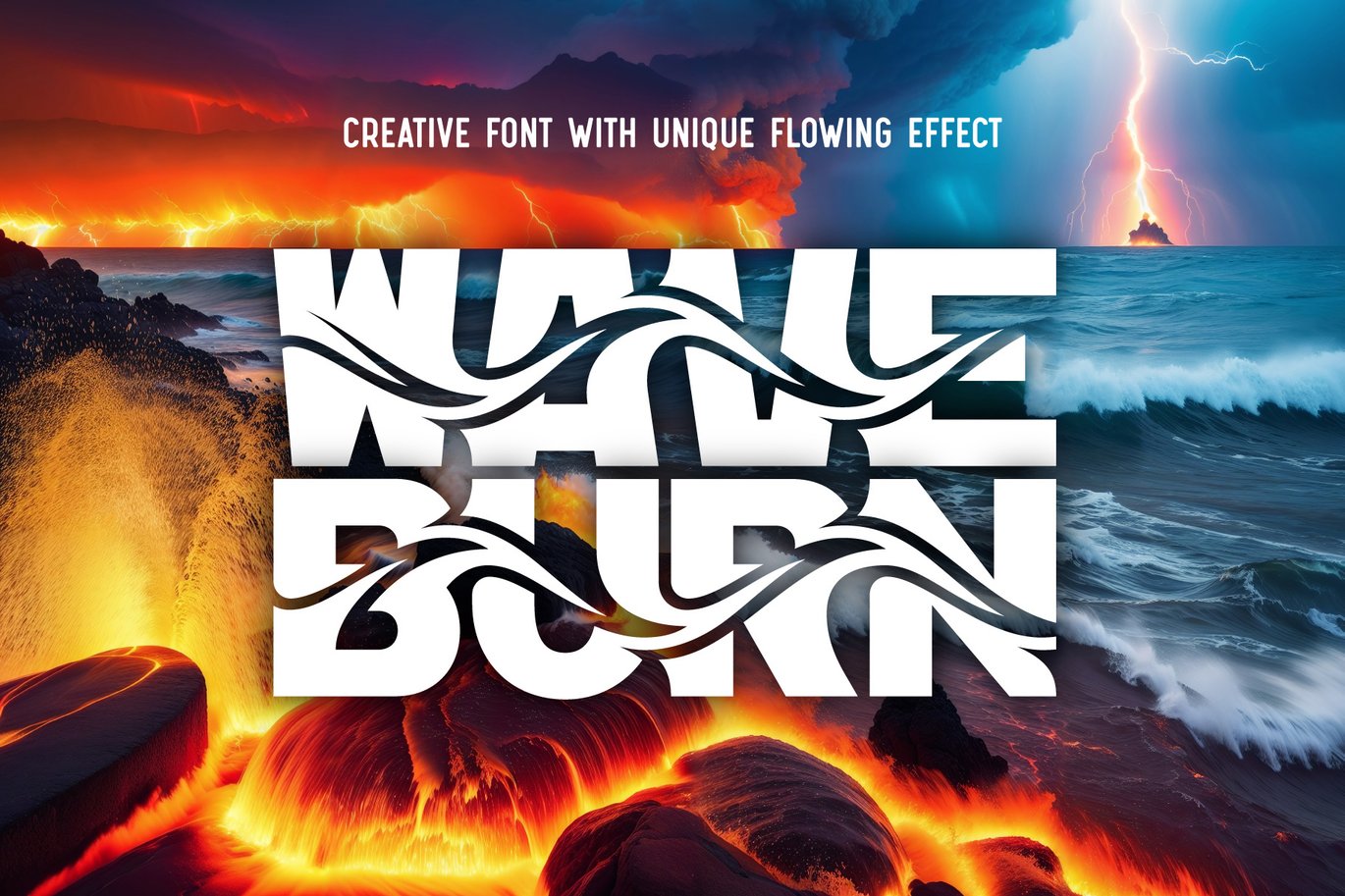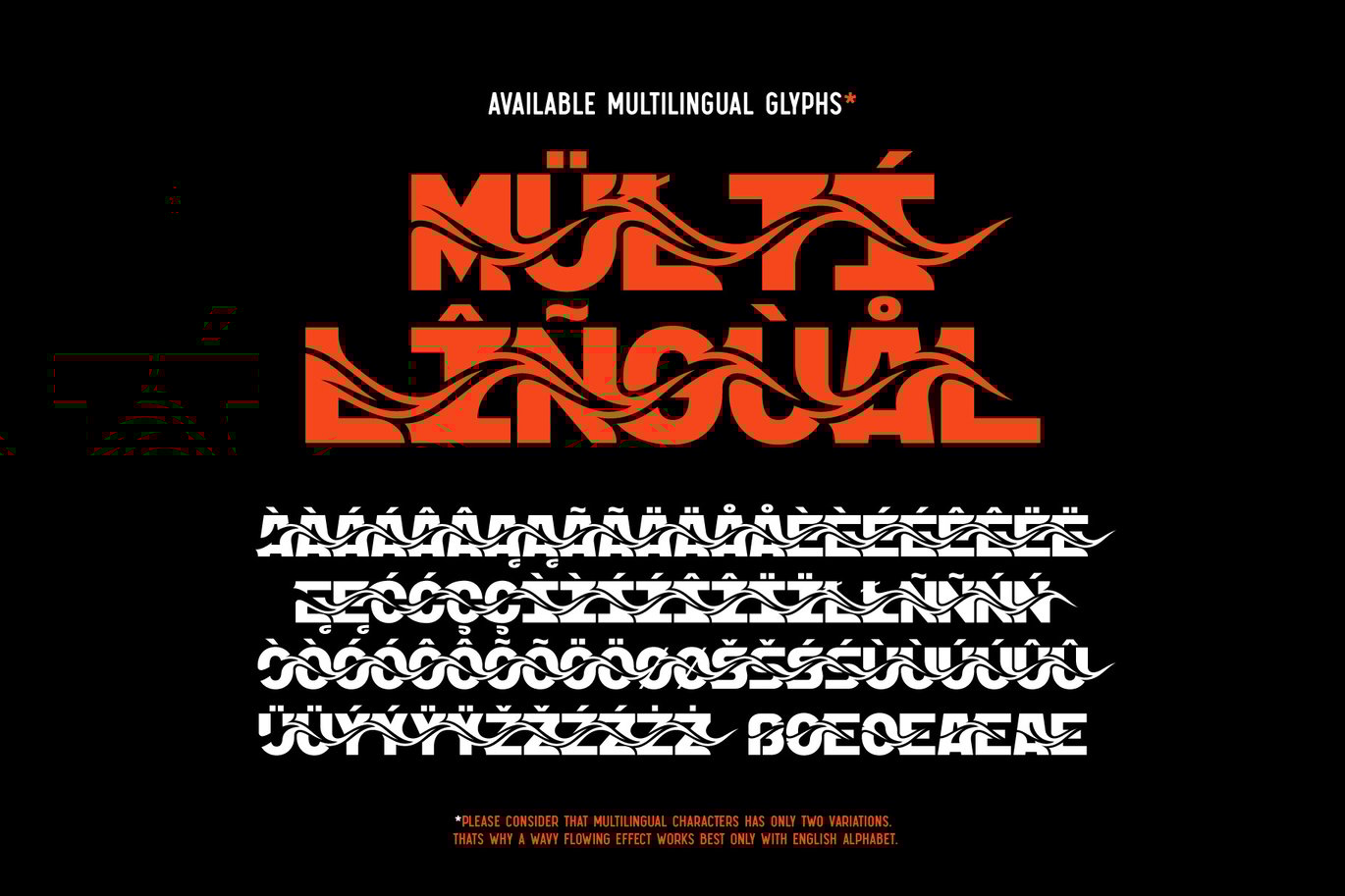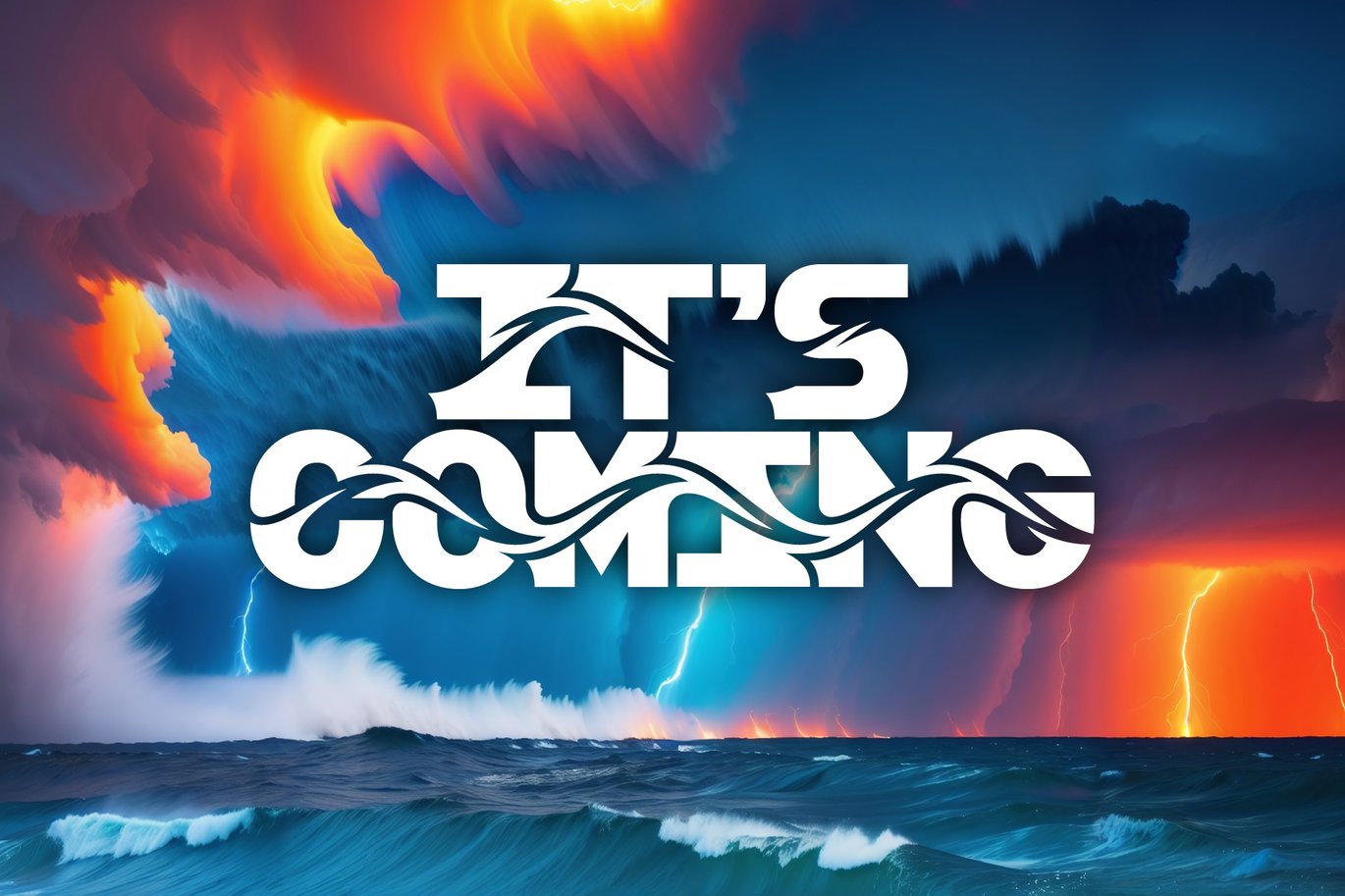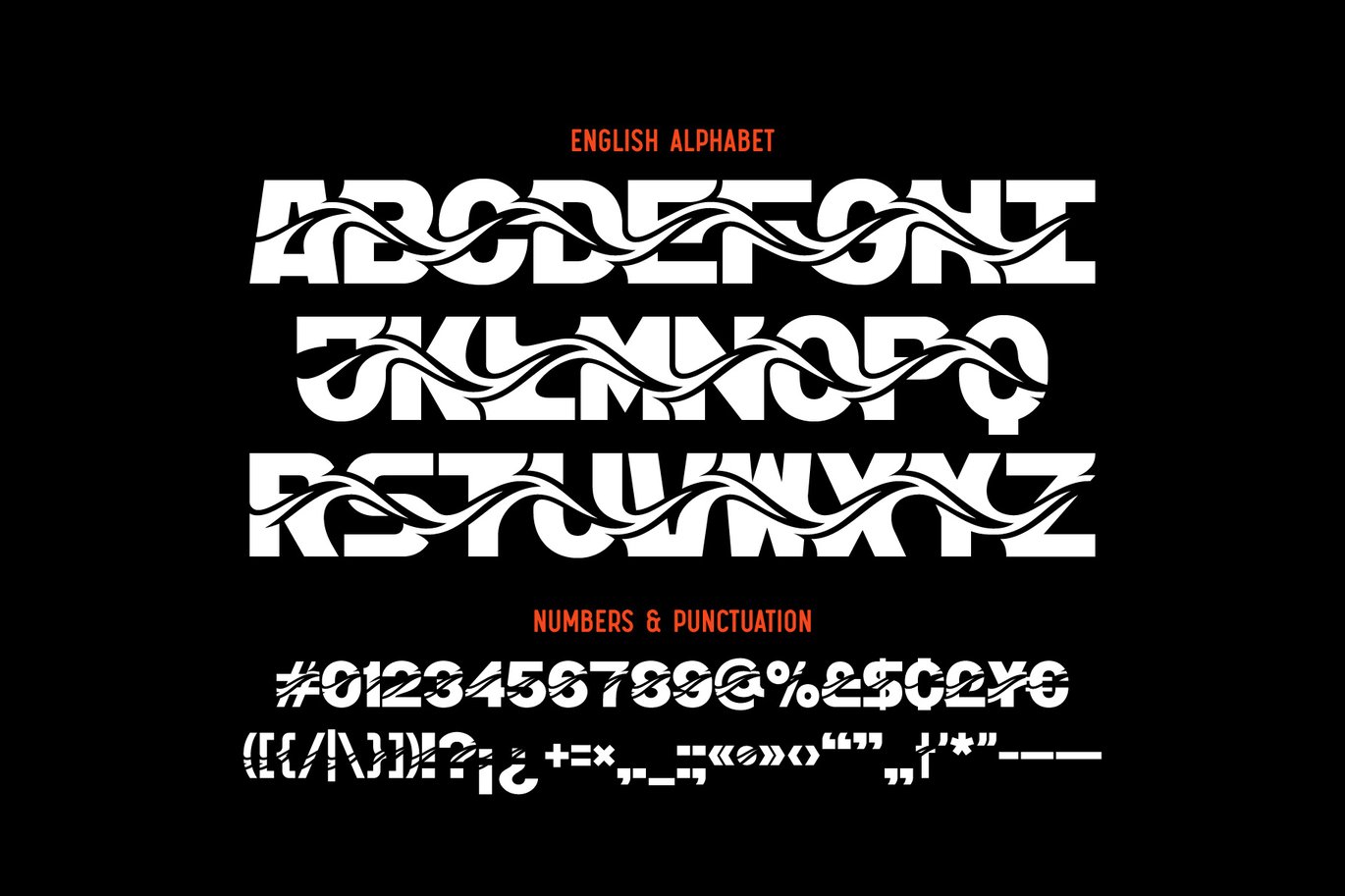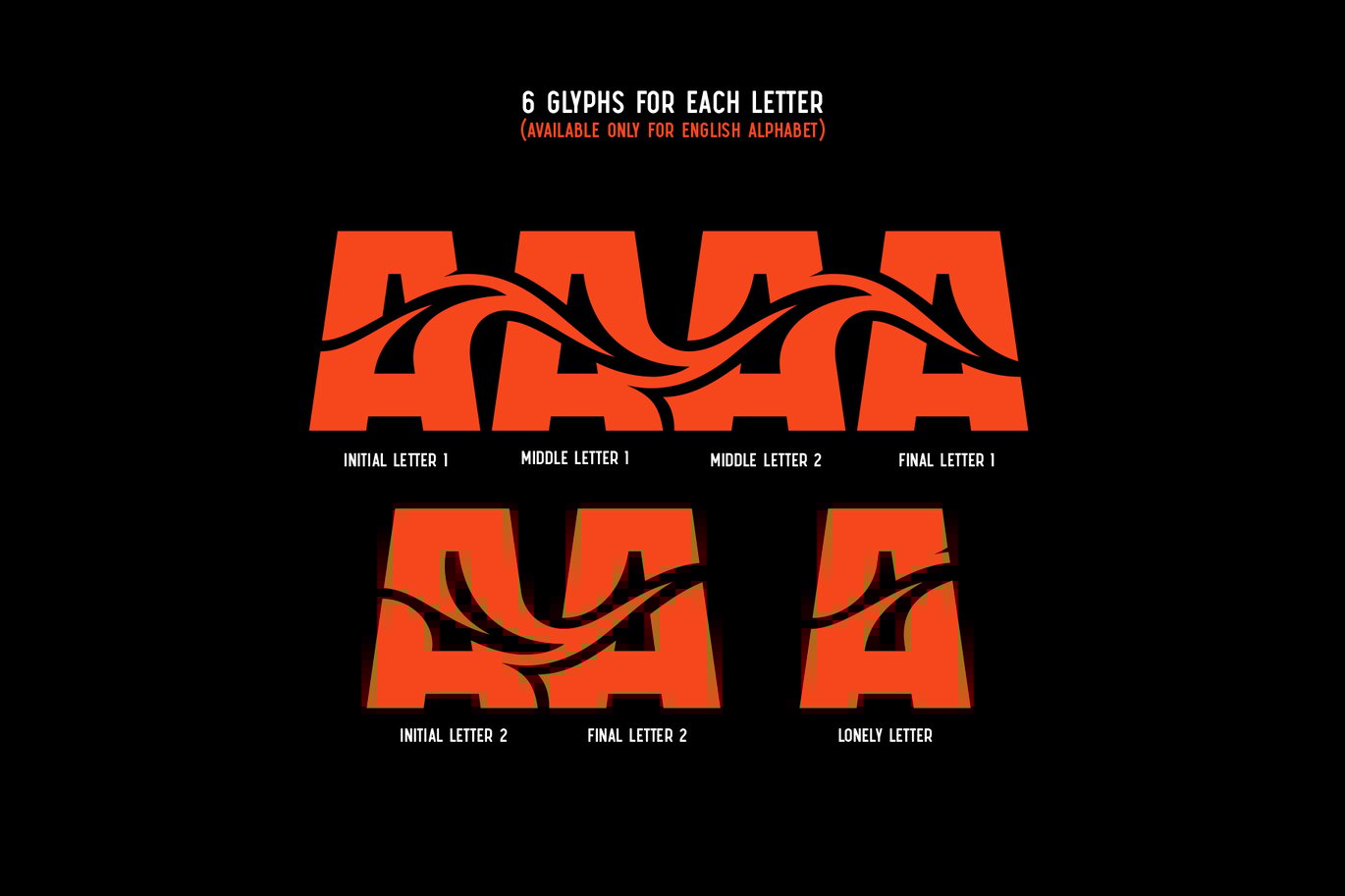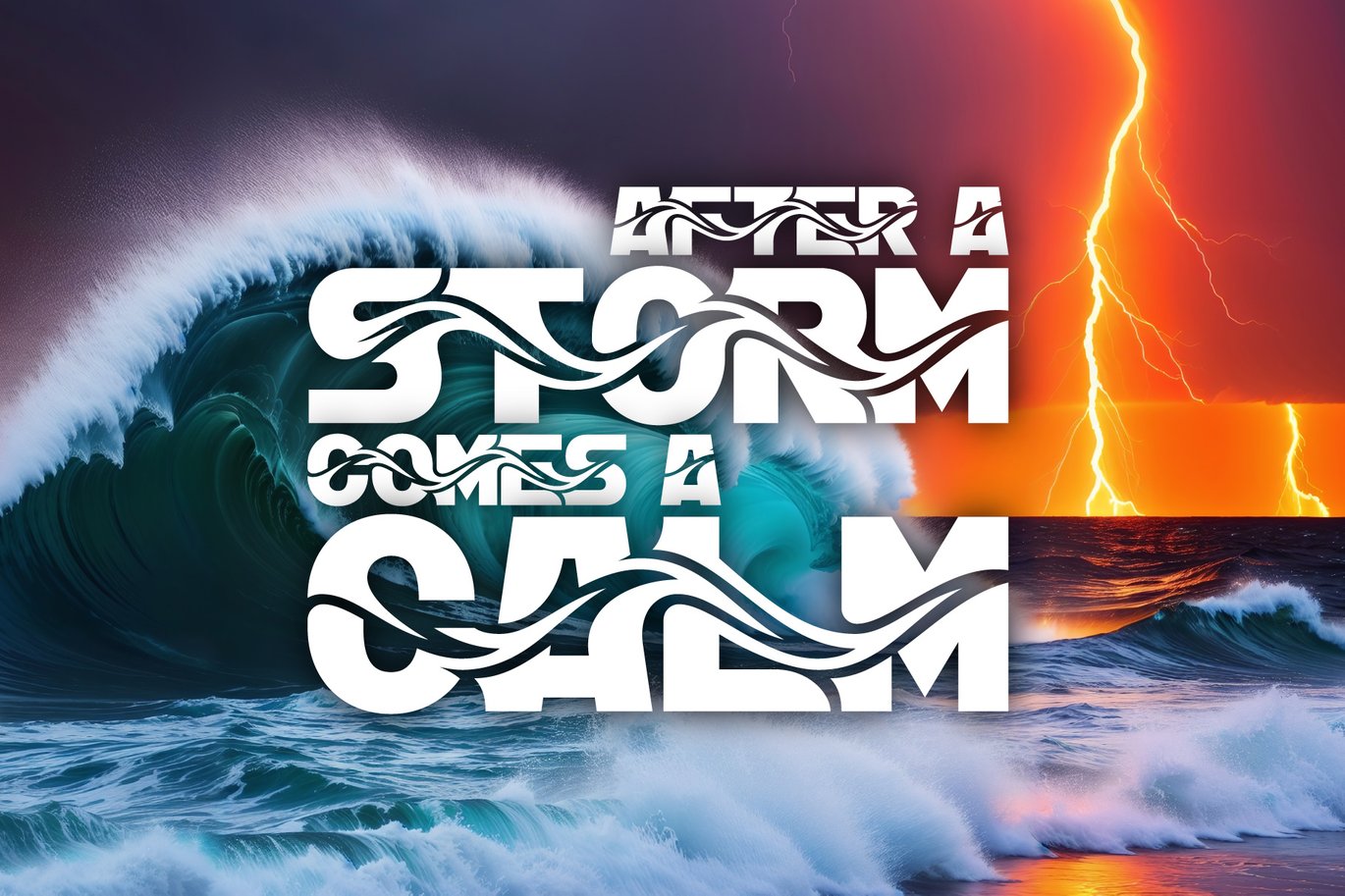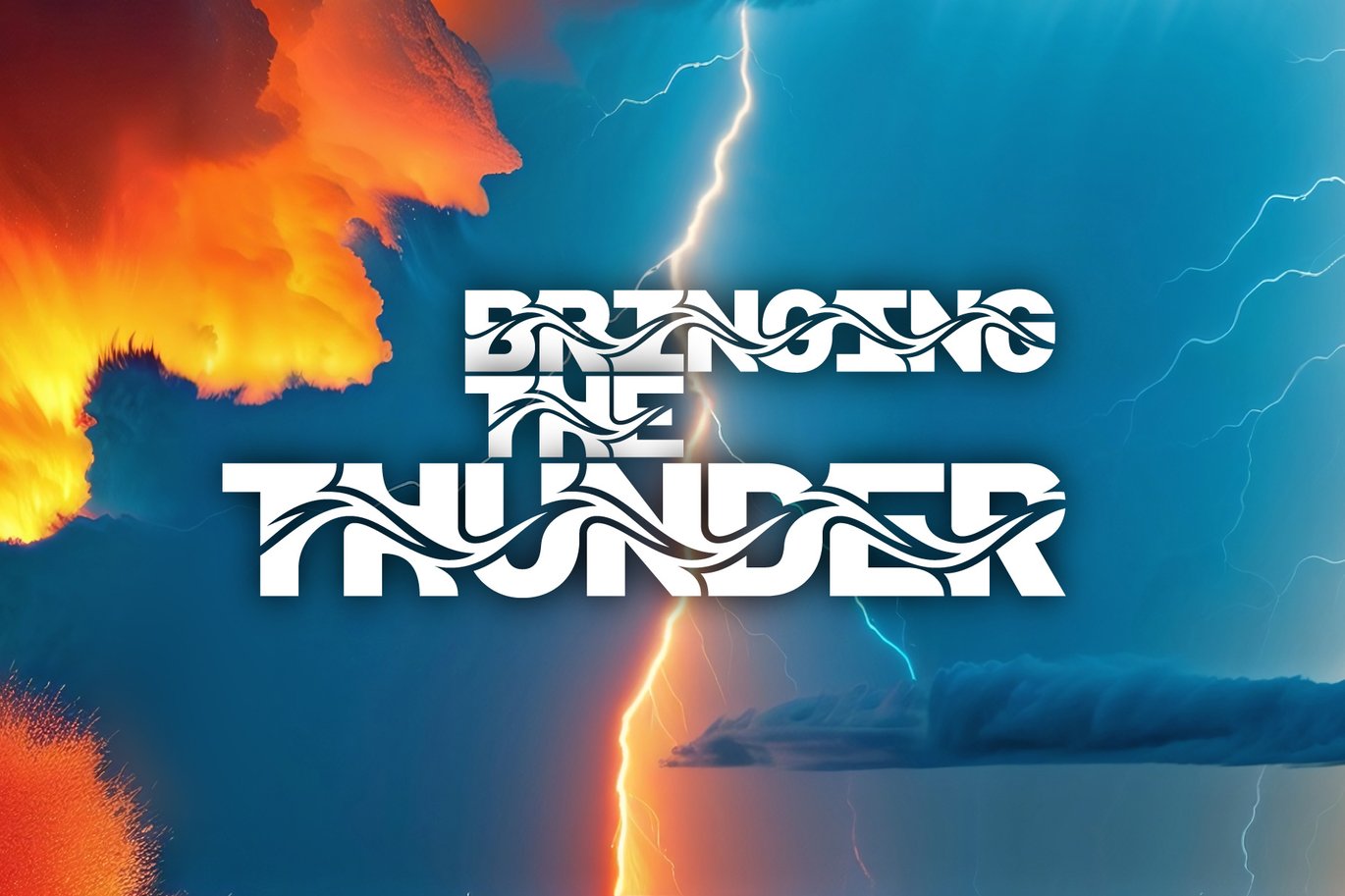
Wave Burn – Creative Font
Hello! Introducing a creative all caps font named Wave Burn. The letters of this typeface are distorted in a wave shape that flows through whole words. To create this effect, each letter has 6 variations that automatically replaces using OpenType Contextual Alternates feature (Please make sure that OpenType features in your app are supported & enabled). This font also includes multilingual characters, but only with two variations, so the wave effect will be quite limited (check out a screenshot with available letters and signs).